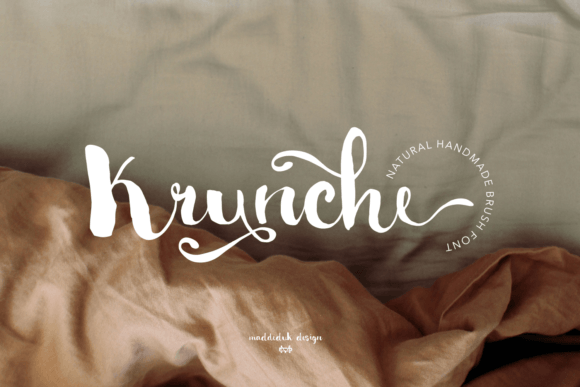
Krunche: A Handwritten Font for Creative Crafters
Where Can Krunche Shine?
- Handmade Labels: Use Krunche on product tags, packaging, or boutique labels to give your items a personalized and refined look.
- Invitations and Stationery: Whether it's wedding stationery, birthday cards, or thank-you notes, Krunche adds a warm, handcrafted feel.
- Wall Art and Decor: Pair Krunche with simple backgrounds or textures to create eye-catching wall art or decorative signs.
- Printable Templates: Design planners, calendars, or printable graphics using Krunche for headings or decorative elements.
- Seasonal Projects: From holiday tags to farmhouse-style signs, Krunche adapts beautifully to seasonal themes.
- Digital Products: Incorporate Krunche into SVG designs, social media graphics, or web content for a cohesive and stylish look.
Real-World Applications
- Candle Labels: Add a touch of elegance to your candle labels with Krunche, making each product feel special and curated.
- Birthday Invitations: Create invitations that feel personal and heartfelt, perfect for any celebration.
- Wedding Welcome Boards: Use Krunche for signage at weddings to set a romantic and welcoming tone.
- Boutique Tags: Enhance your shop’s appeal with beautifully designed tags that reflect your brand’s personality.
- Holiday Packaging: Make your holiday products stand out with festive designs featuring Krunche.